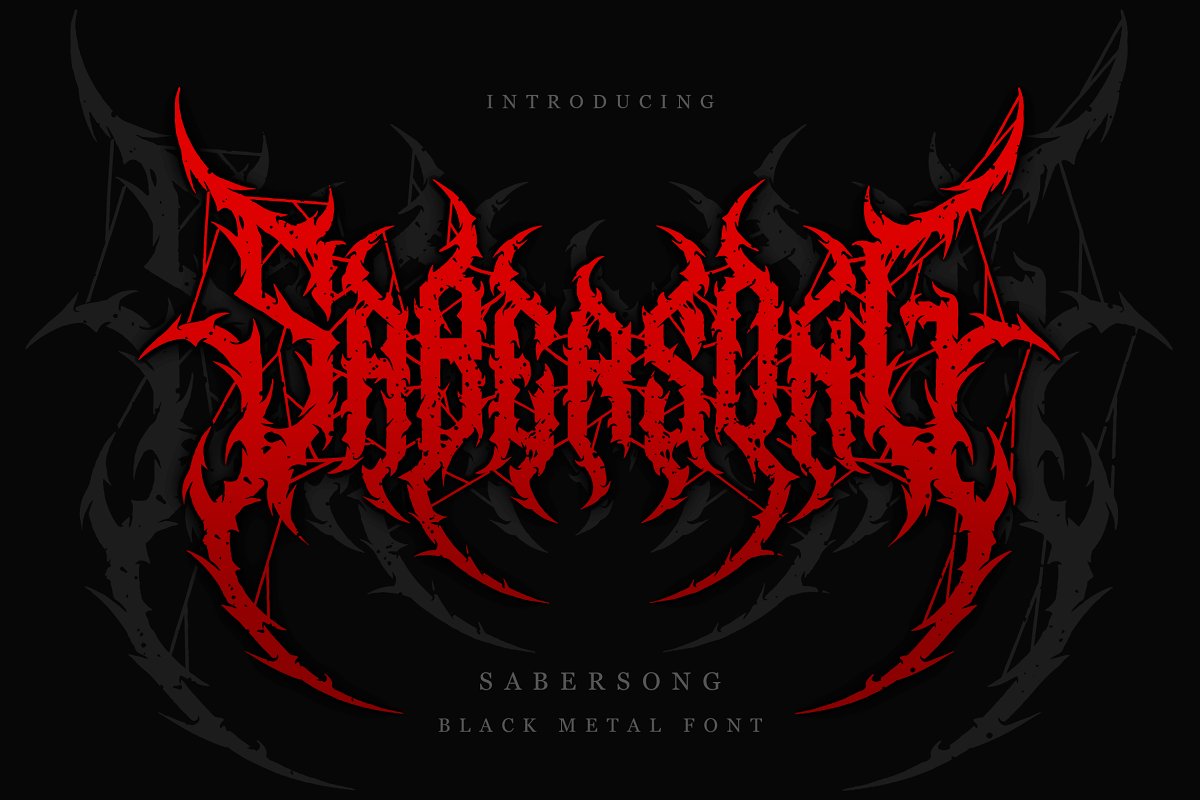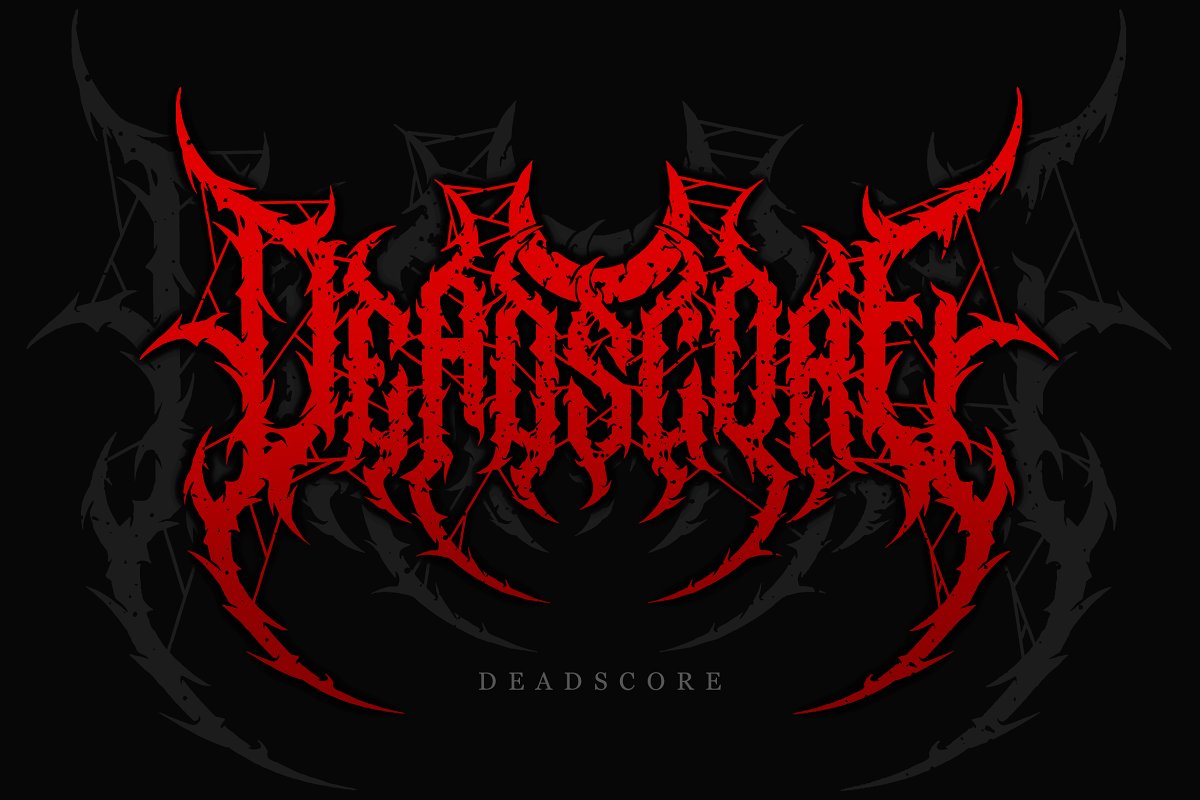
About the Sabersong | Black Metal Font Vol.3
Tutorials Photoshop: https://youtu, be/qfUNZr0m4n8Procreate: https://youtu, be/R_5O_pfPBIYSabersong is a carefully crafted font, which features a very heavy black metal feel, Sabersong suitable for metal band logos, merchandise, clothing, apparel, or anything that needs a black metal feel,